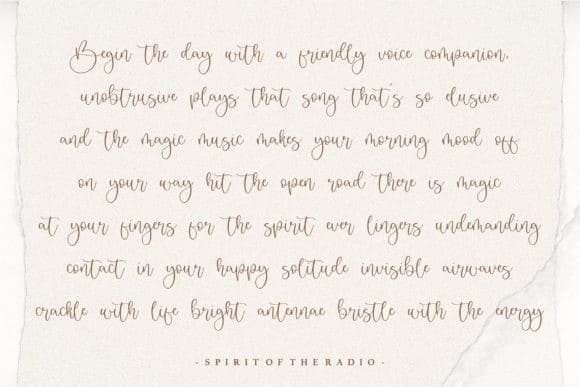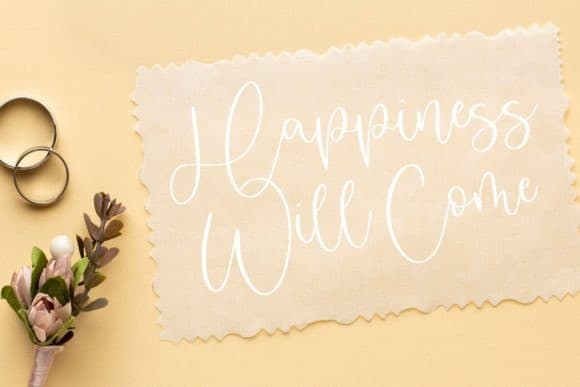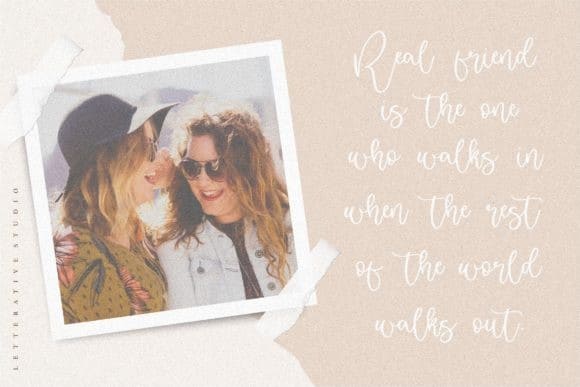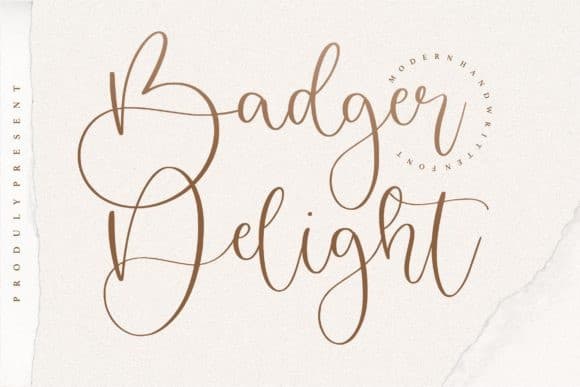
Badger Delight Script Font
Introducing Badger Delight Script Font – is modern script font that features a varying baseline, smooth, classic and elegant touch. All lowercase letters include alternates, beginning & end swashes, that makes the font look fabulous! It’s a gorgeous, round lettered handwritten font. It looks stunning on wedding invitations, thank you cards, quotes, greeting cards, logos, business cards and every other design which needs a handwritten touch.